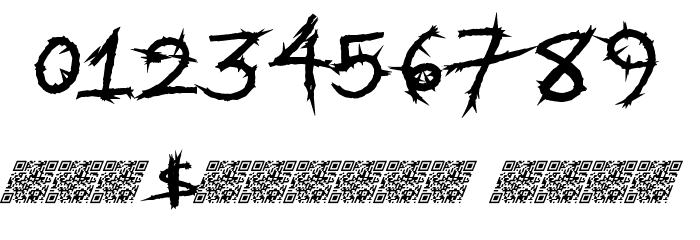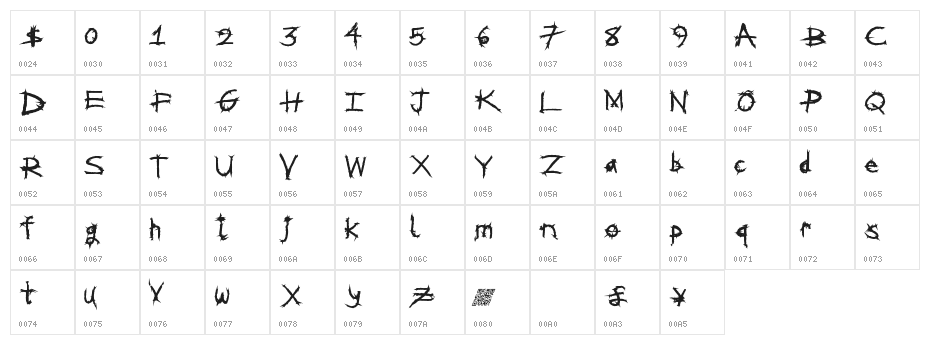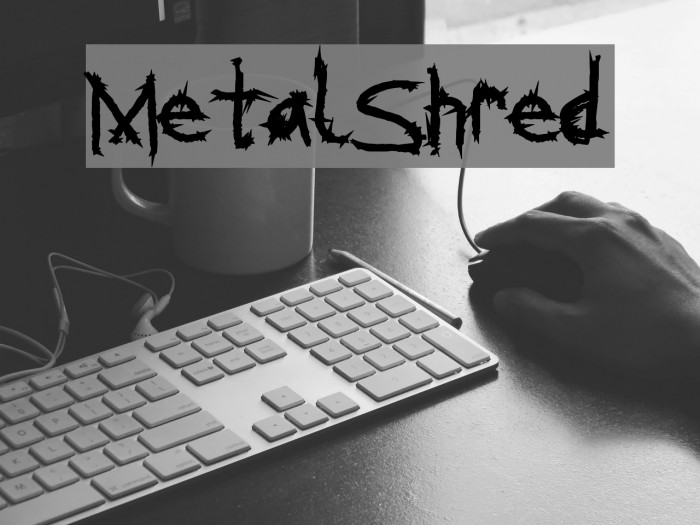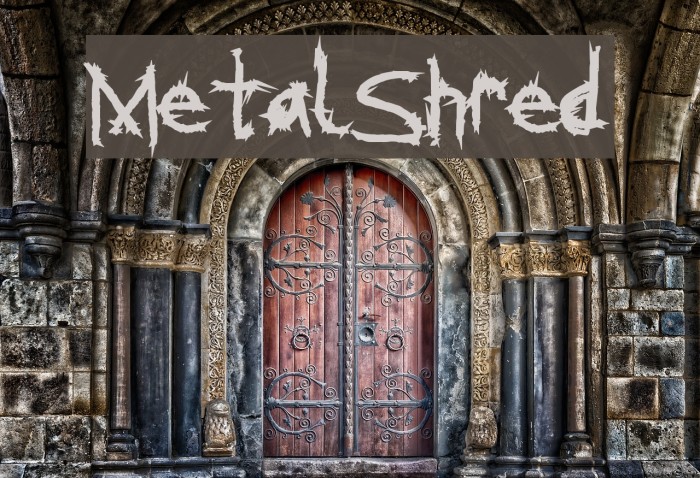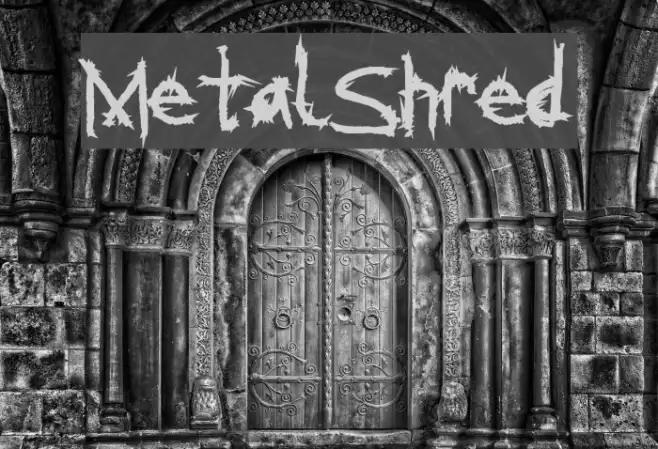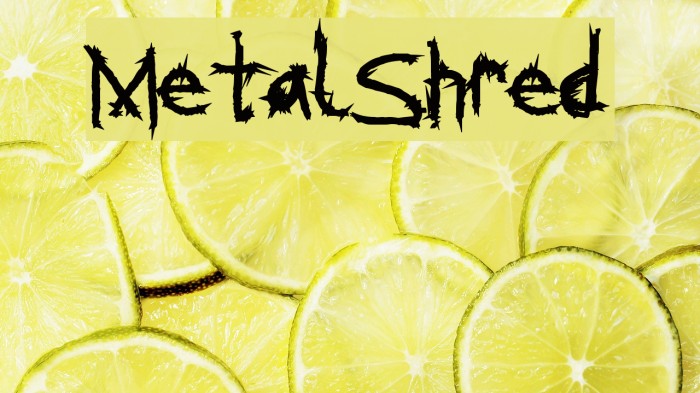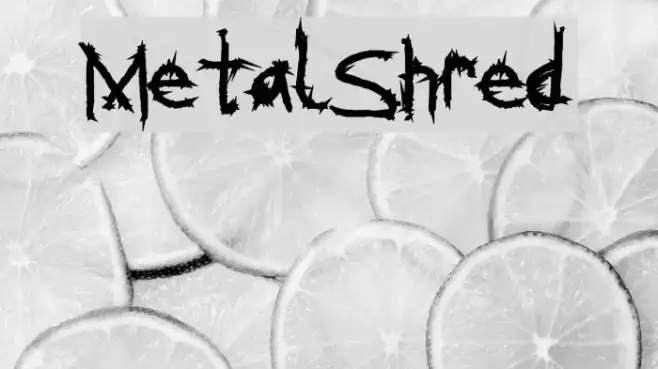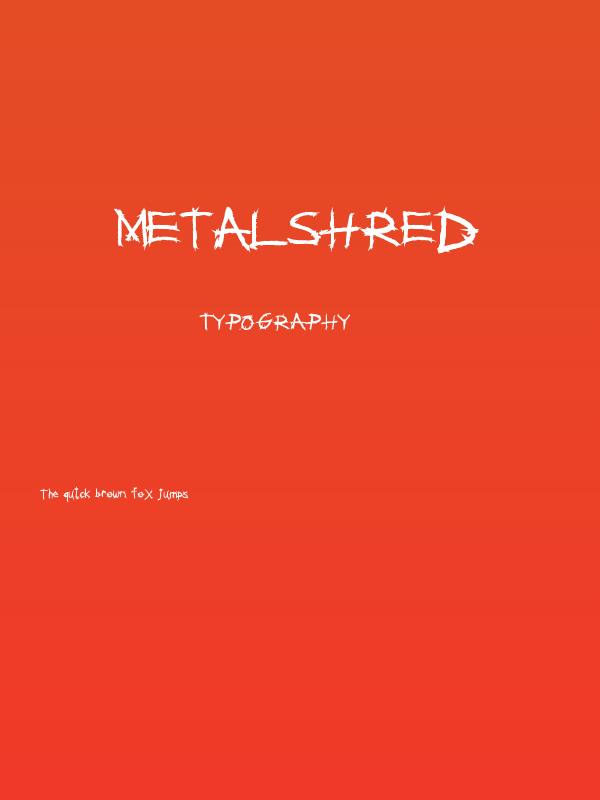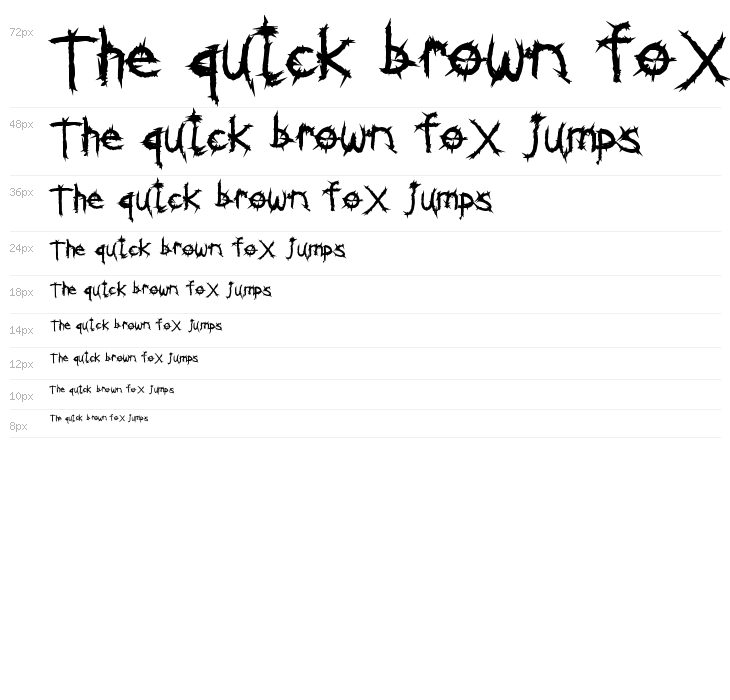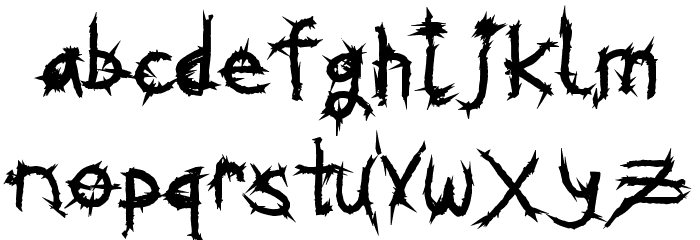
MetalShred Font
MetalShred Description
This font features a jagged, thorn-like design that exudes a raw, edgy aesthetic. The characters are sharply pointed, with irregular, spiky edges that create a sense of movement and aggression. This style is reminiscent of heavy metal or punk themes, making it ideal for projects that require a bold, rebellious look. The uppercase and lowercase letters maintain a consistent style, with numbers and special characters following the same rugged design. The font's unique appearance makes it stand out, perfect for capturing attention in dynamic and energetic contexts.
METALSHRED UPPERCASE
METALSHRED LOWERCASE
METALSHRED OTHER CHARS
| Use Case | Logos, Posters, Headlines |
| Proposed Projects | Ideal for band logos, album covers, event posters, or any project needing a bold, edgy look. |